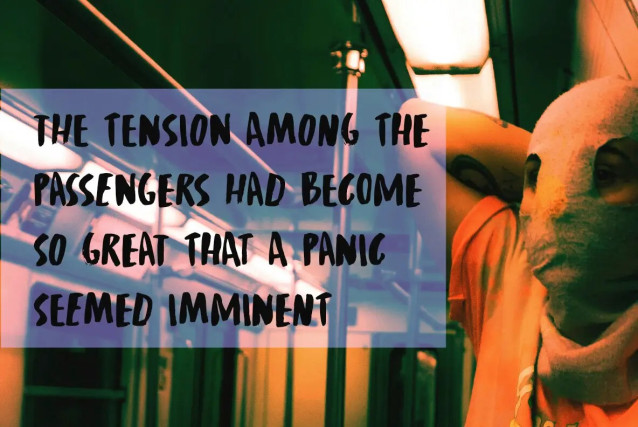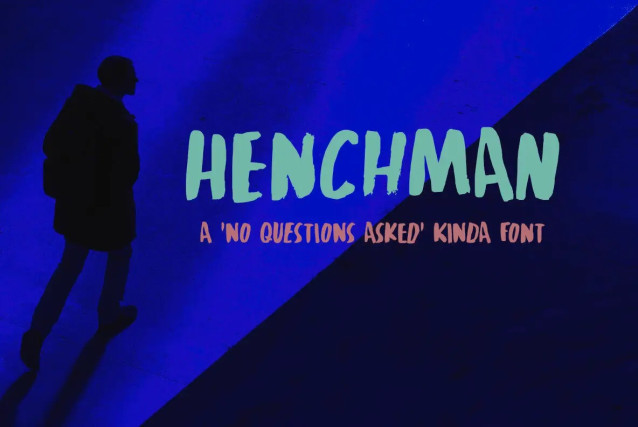
Henchman Brush Font
Henchman Brush Font is a handmade brush font crafted with a Chinese brush and ink, evoking the dynamic energy and personality of non-player characters often found in games. With its distinctive style, it is perfect for adding a unique touch to your design projects. This font caters to a broad audience by offering extensive language support, making it versatile for international use.
One of the standout features of Henchman is its set of auto-rotating alternates. This functionality enhances the font’s natural, handcrafted feel by automatically varying character appearances, ensuring your designs remain fresh and engaging. Ideal for branding, posters, and creative projects, Henchman brings a bold and dynamic element to your typography.